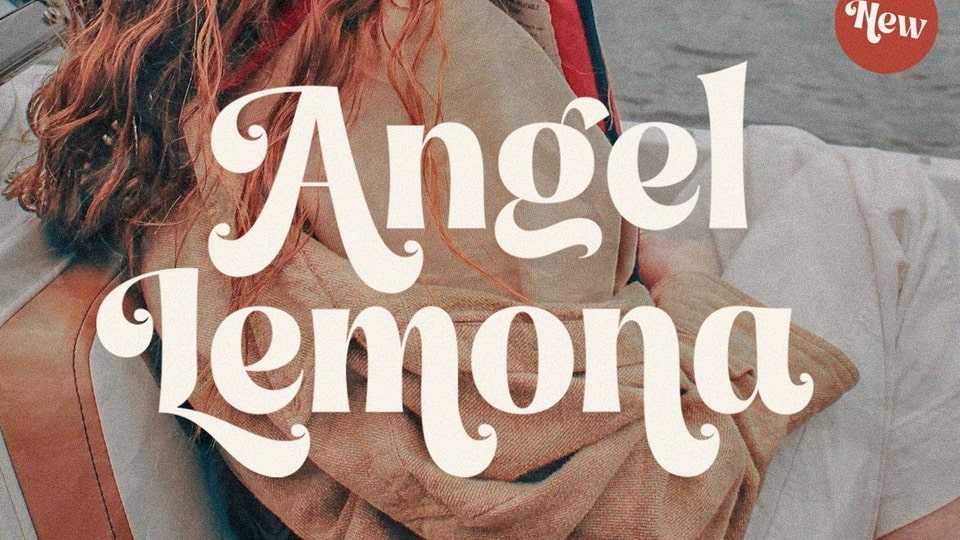
Download Angel Lemona font, an ordinary display typeface inspired by hipster and cheek style. Angel Lemona font is perfect for a variety of display applications: print, web, branding, advertising, magazines, packaging, fashion, etc.
Designer: Pentagonistudio